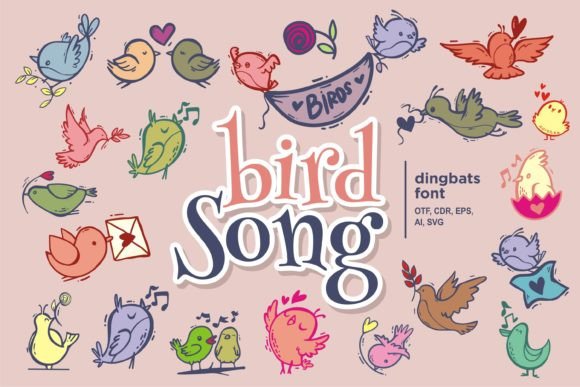
Introducing Bird Song Font, the ultimate dingbats font that will add an adorable touch to your designs! Created by the talented onoborgol, this unique font is the perfect choice for anyone looking to elevate their projects with a touch of cuteness.
With its versatile design, Bird Song can be used in a variety of styles, making it the best font for welcome signs, crafts, digital design, presentations, and even greeting cards. No matter the occasion, this font has the power to transform your creations into eye-catching masterpieces.
Imagine adding a whimsical touch to your next presentation or impressing your clients with a delightful welcome sign. Bird Song Font will effortlessly capture everyone's attention and leave a lasting impression. Its charming characters and artistic details will make your designs stand out from the crowd.
But Bird Song Font is not just about aesthetics. It is also incredibly easy to use and navigate, allowing you to unleash your creativity without any hassle. Say goodbye to hours spent searching for the perfect font – Bird Song is here to become your go-to font for all your design needs.
Moreover, this font is packed with emotion. It evokes feelings of joy, warmth, and playfulness, instantly connecting with your audience on a deeper level. Whether you're crafting a heartfelt message or creating a fun logo, Bird Song Font will effortlessly convey the right emotions and captivate your viewers.